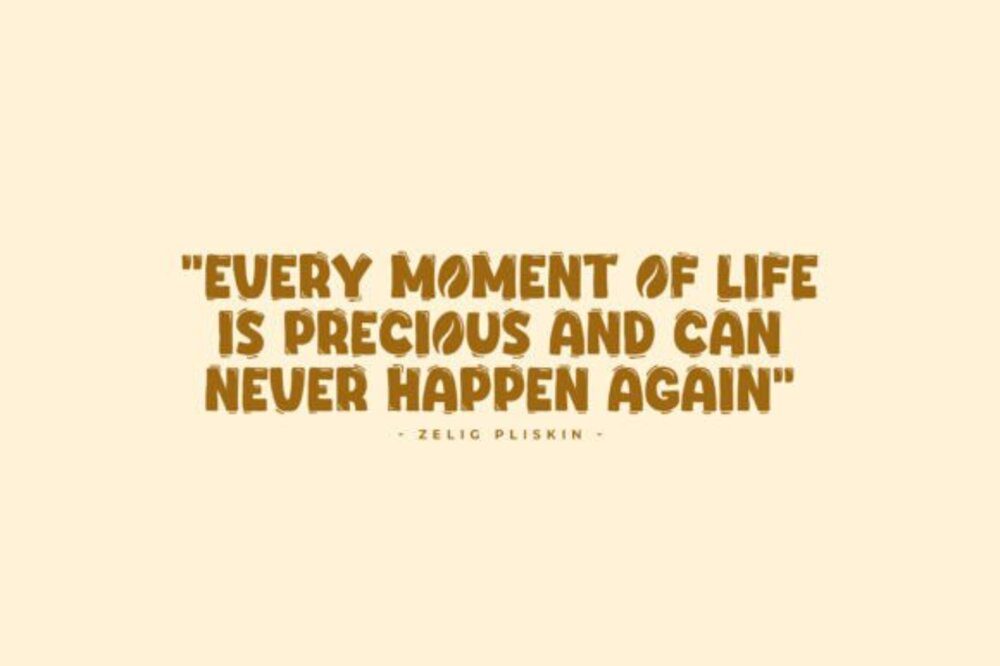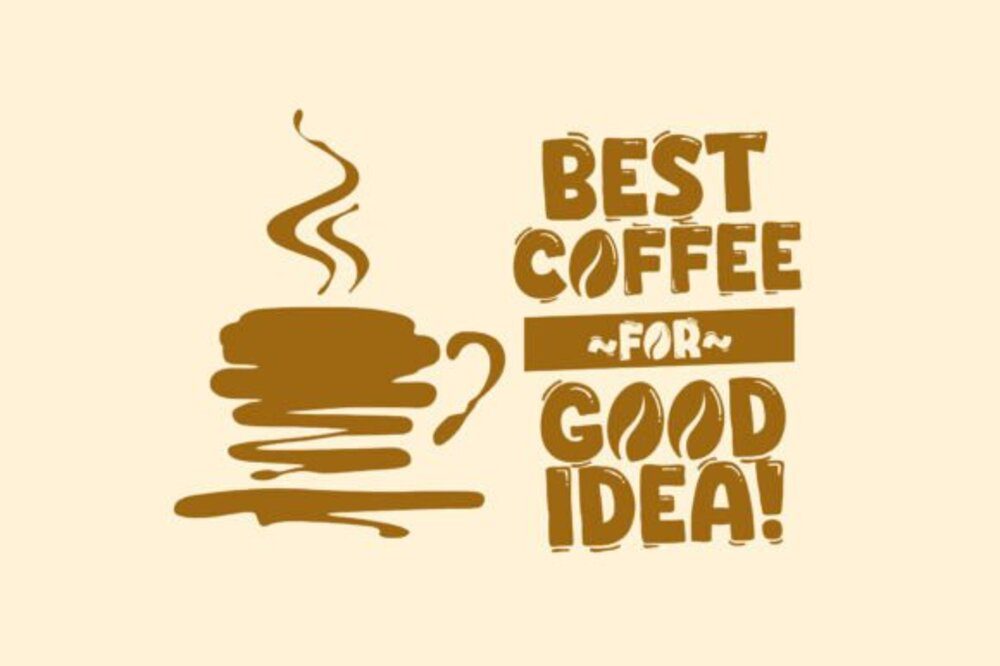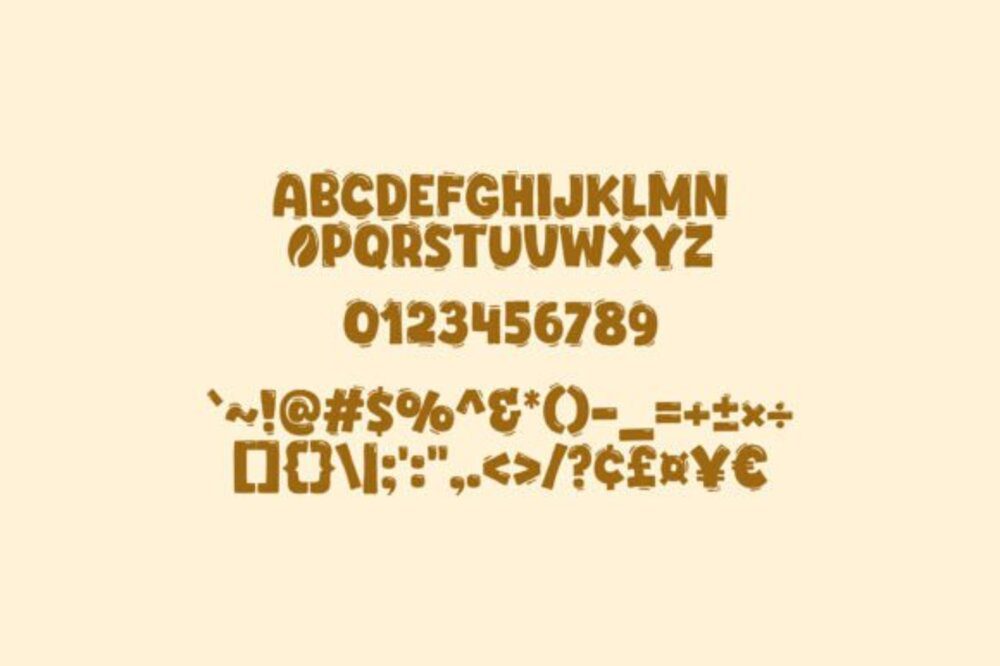
Coffee Town Font
Coffee Town font is a cozy and rustic typeface inspired by the charm of neighborhood cafés. With its handcrafted, vintage aesthetic, it brings warmth and character to any design. The font’s textured strokes and organic feel are perfect for coffee shop branding, menus, packaging, or lifestyle projects. Coffee Town evokes a sense of nostalgia and homely elegance, making it ideal for designs that seek to blend tradition with inviting authenticity.